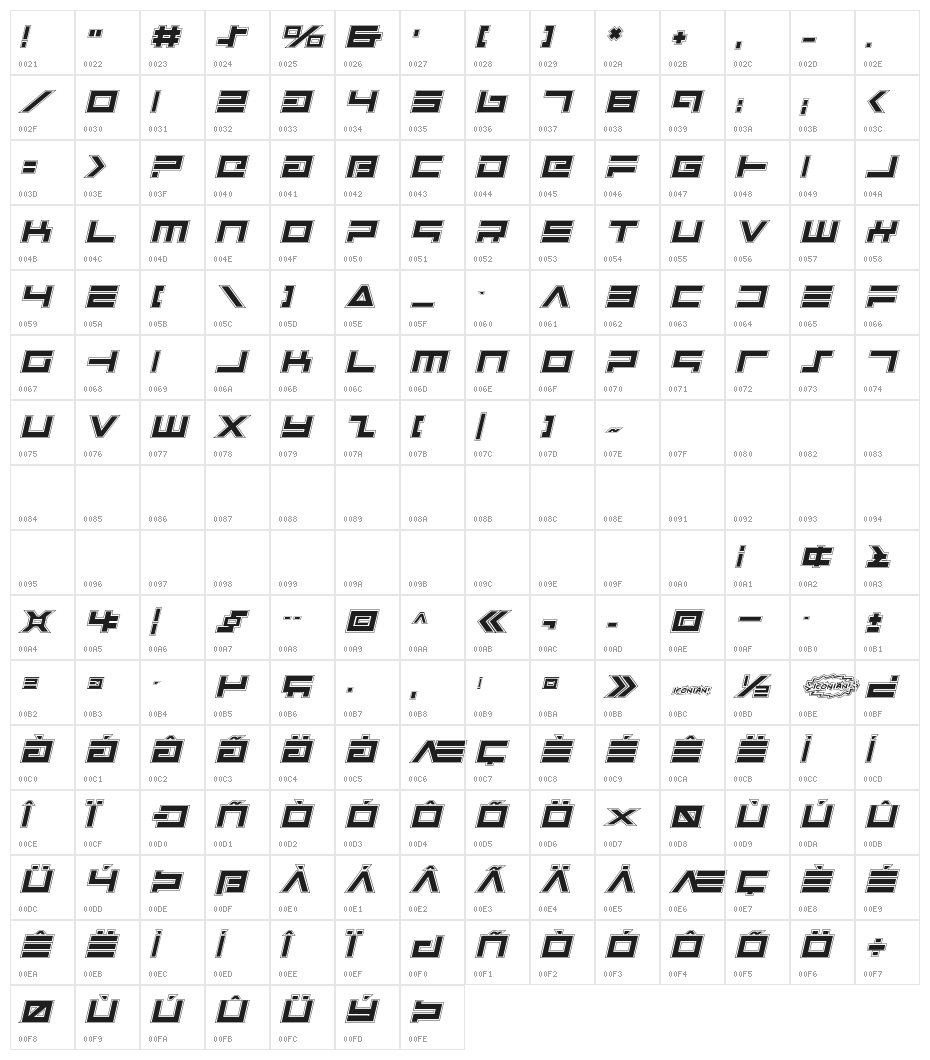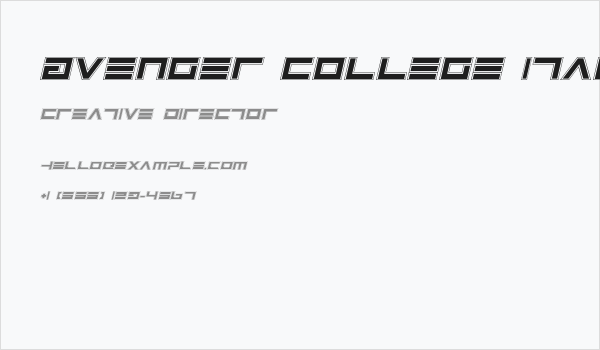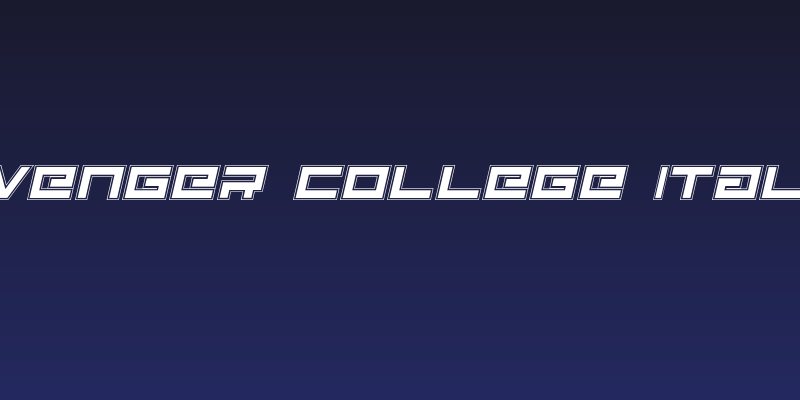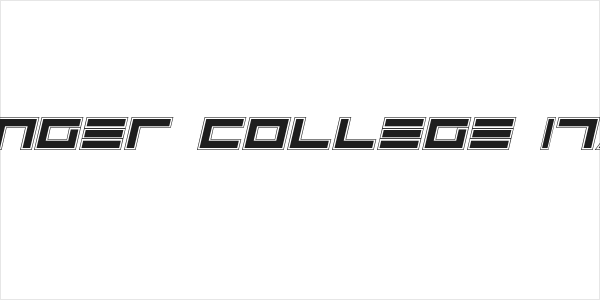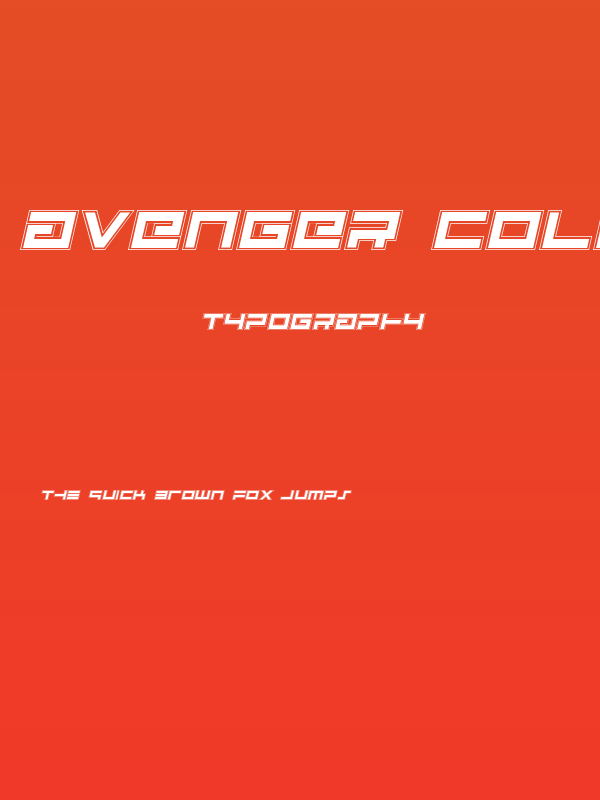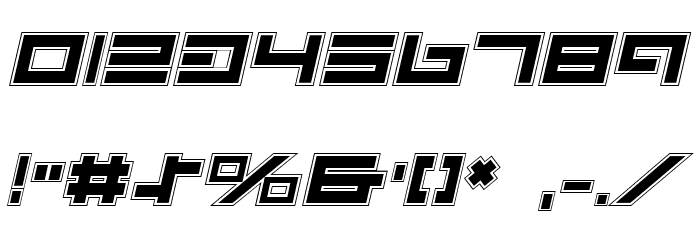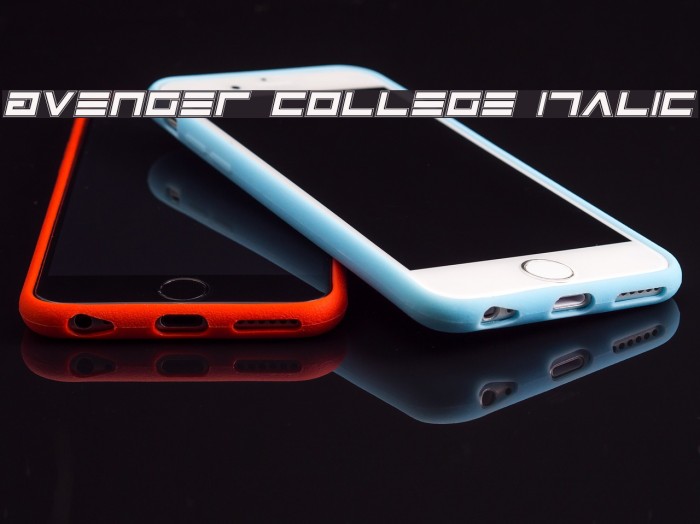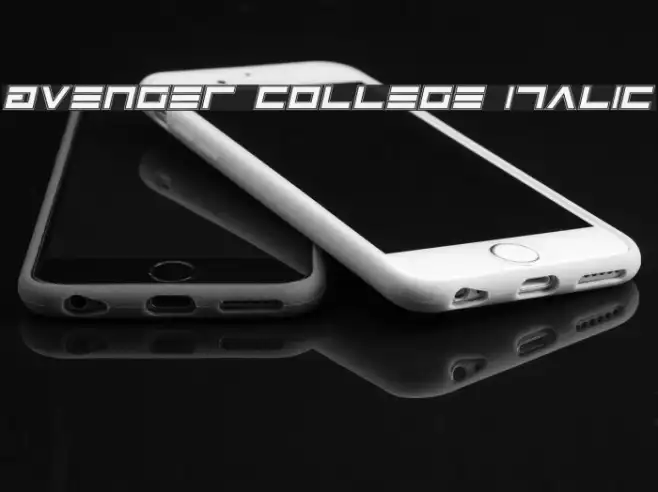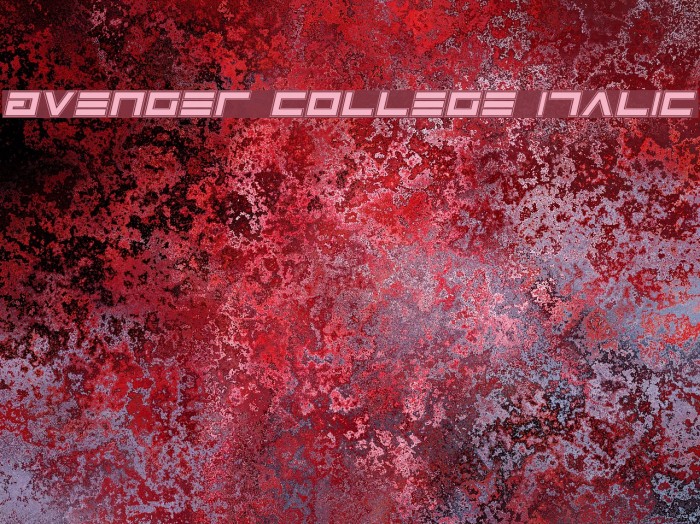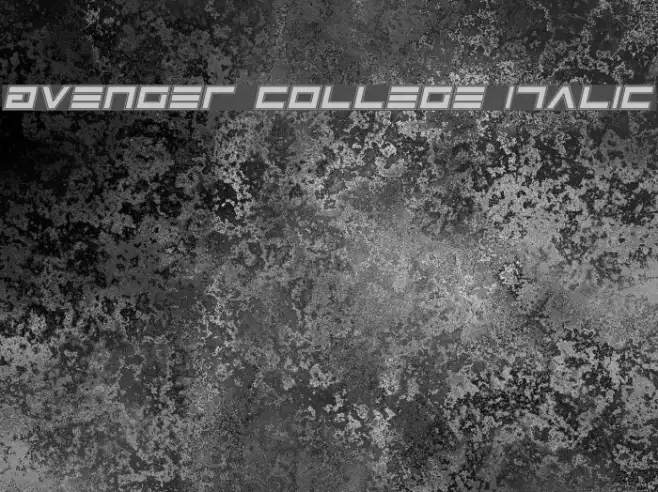
Avenger College Italic Font
Avenger College Italic Description
This font features a bold, italicized style with a futuristic and dynamic appearance. The characters are outlined with a double-layered effect, giving them a three-dimensional look. The design incorporates sharp angles and geometric shapes, creating a sense of movement and energy. The uppercase and lowercase letters maintain a consistent style, with a slight slant that enhances the italic effect. The numbers and special characters follow the same design principles, ensuring uniformity across all elements. This font is ideal for projects that require a strong, modern aesthetic.
| Proposed Projects | Ideal for sports team branding, sci-fi themed posters, video game titles, and dynamic logo designs. |